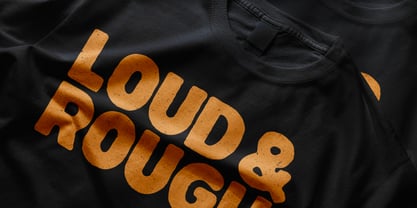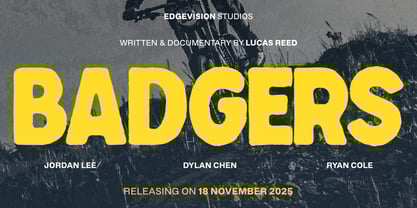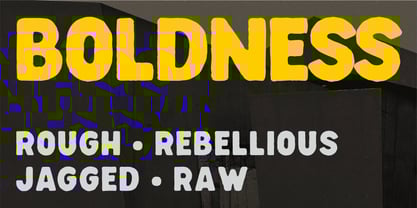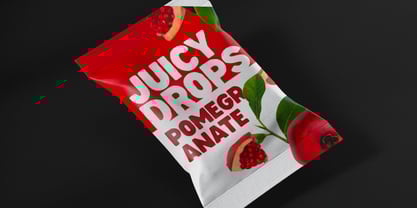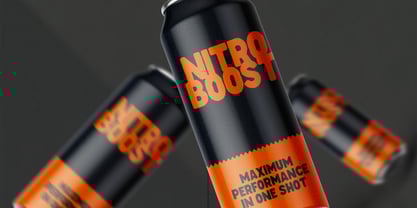
Rugles
by Floves Type
The Rugles Font Family was designed by Dimas Nirwan and published by Floves Type. Rugles contains 1 styles.
RUGLES — Rough Bold Headline Font
RUGLES delivers high-impact branding and visual appeal across multiple
primary markets by combining bold letterforms with a raw, rough stroke.
Perfect for streetwear labels, event posters, and artisanal product lines,
RUGLES merges industrial toughness with a modern rebellious
aesthetic—a fusion that reinforces brand authenticity and commands
a visually compelling presence.
Whether you’re crafting a striking
headline or elevating product packaging, RUGLES delivers unmistakable
style that resonates with contemporary audiences, setting your brand
apart with confidence and flair.
• Bold, Rough Forms
• Standout Legibility
• Urban Edge & Versatility
• High-Impact Branding
• Rebellious Aesthetic
Designers: Dimas Nirwan
Publisher: Floves Type
Foundry: Floves Type
Design Owner: Floves Type